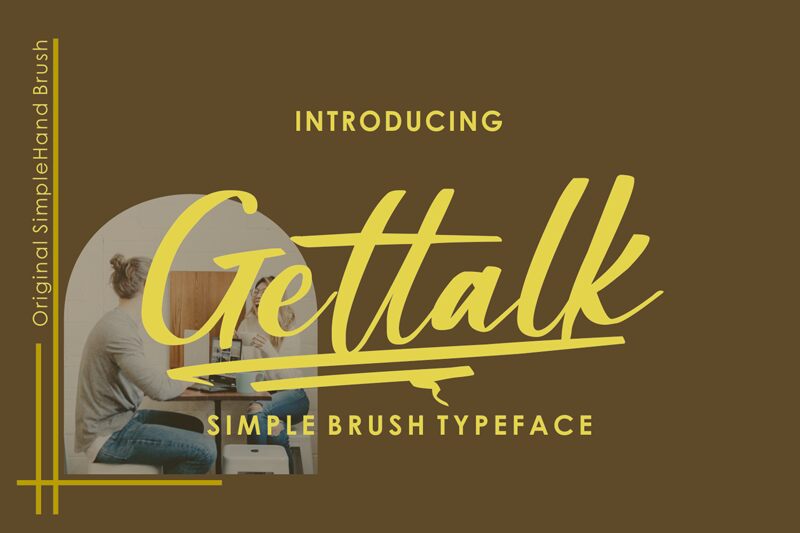
Gettalk, designed by zamjump, exudes a casual elegance with its semi-light handwritten style that captures the essence of personal touch in every curve. The font's fluidity bridges the gap between approachable warmth and professional finesse, making it a versatile choice for various creative endeavors.
Whether it's for branding, invitation cards, or product packaging, Gettalk adds a bespoke charm that resonates with audiences seeking authenticity. Its aesthetic appeal lies in its ability to convey a sense of individuality while maintaining legibility and visual interest. Embrace the inviting personality of Gettalk to infuse your projects with a distinctive handwritten flair that stands out in today's digital world.
Gettalk — Schriftpräsentation